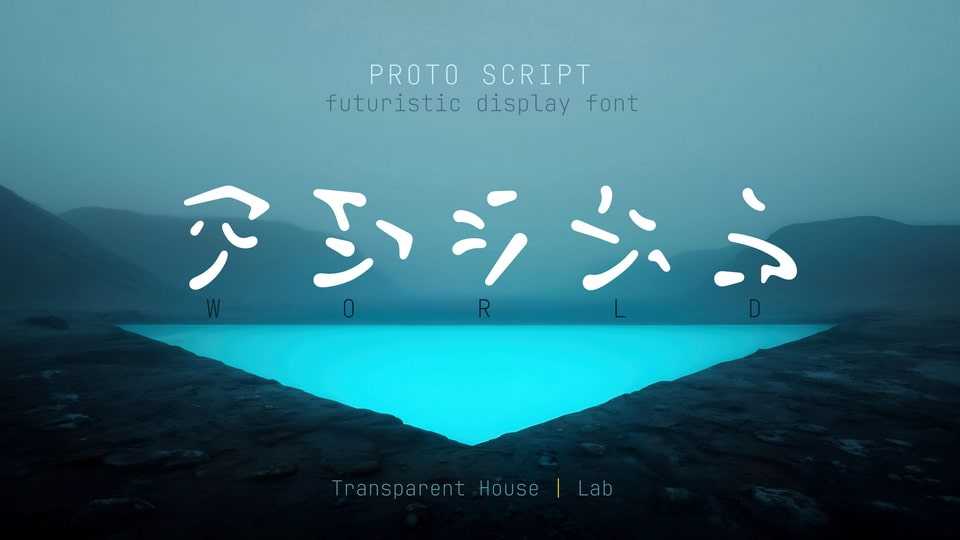
Download ProtoScript font, a fictional writing system — a display typeface inspired by Japanese katakana, East Asian calligraphy, and cyberpunk aesthetics.
Designer: Iurii Pitomtsev